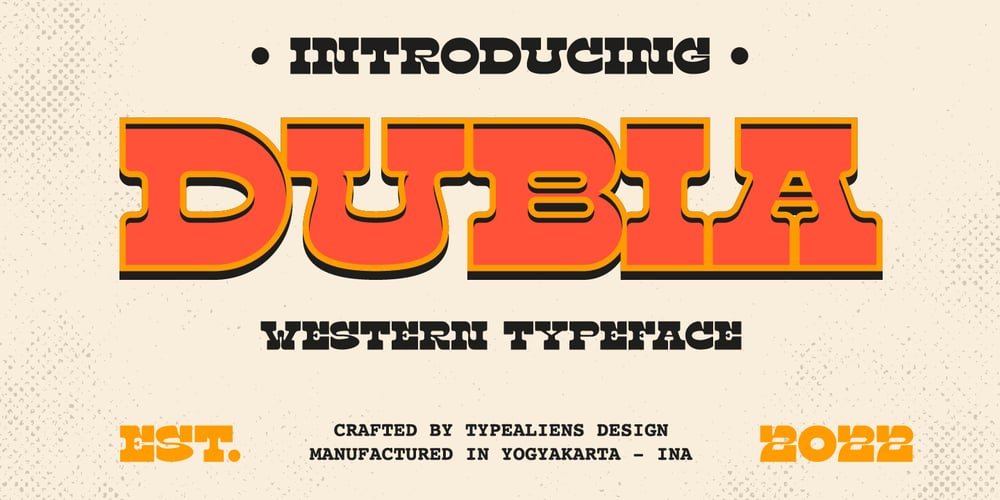
Dubia Font Family was designed by Ilham Wahyu and published by Ilhamtaro. Dubia contains 1 styles and family package options. DUBIA is a western style font, a font that goes well with cowboy, rodeo and vintage designs. The font, which is based on a serif font, is bold and tends to carry a strong and tough character like a cowboy taming a wild horse.This font is allcaps so it is perfect for creating a title or headline on a poster or magazine cover design.To enable the OpenType Stylistic alternates, you need a program that supports OpenType features such as Adobe Illustrator CS, Adobe Indesign & CorelDraw X6-X7.Cheers!